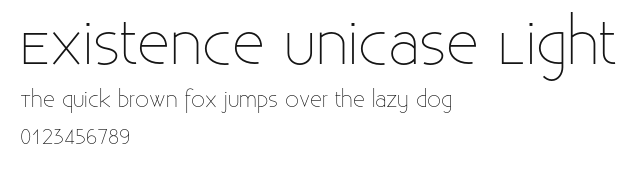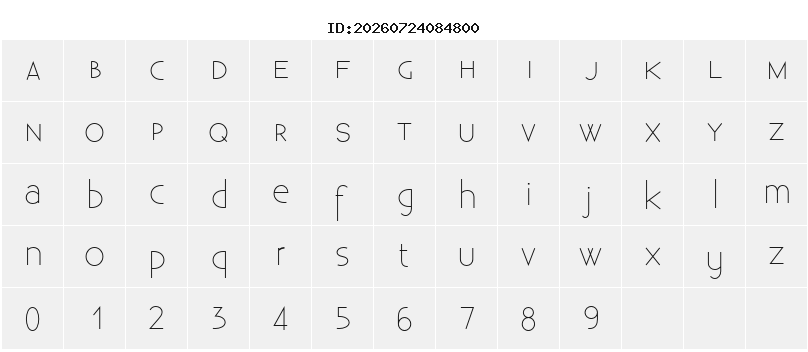
Existence Unicase Light Preview
• Font Name: Existence Unicase Light
• Designer: Yeah Noah
• Manufacturer: Yeah Noah
About Existence Unicase Light.otf
Existence Unicase Light.otf is a modern, elegant sans-serif font designed for ultimate readability and visual harmony. Perfect for branding, headlines, web design, and print materials.